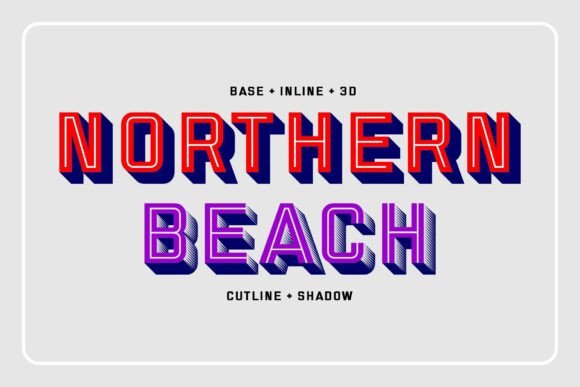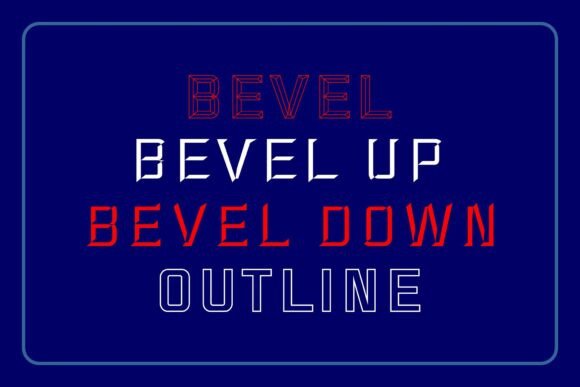
Introducing Factory Font: The Ultimate 3D-Style Font for Eye-Catching Titles and Logos
Are you tired of using plain and ordinary fonts for your designs? Do you want to add a touch of industrial chic to your titles and logos? Look no further than Factory Font, a bold and striking 3D-style font that’s perfect for making a statement. With its layered design and strong, three-dimensional effect, Factory Font is sure to grab attention and leave a lasting impression.
What is Factory Font?
Factory Font is a unique and innovative font that’s designed to give your text a rugged, industrial look. Its bold, 3D-style design features layered letters that appear to be stacked on top of each other, creating a strong and eye-catching effect. The layers add depth and dimension to the text, making it look like it’s popping out of the page.
Key Features of Factory Font
- Bold and striking design: Factory Font is designed to make a statement, with a bold and striking 3D-style design that’s sure to grab attention.
- Layered design: The font features layered letters that appear to be stacked on top of each other, creating a strong and three-dimensional effect.
- Industrial chic: Factory Font has an industrial, rugged look that’s perfect for adding a touch of edginess to your designs.
- Perfect for titles and logos: The font is ideal for use in titles, logos, and other applications where you want to make a bold statement.
How to Use Factory Font in Your Designs
Factory Font is a versatile font that can be used in a variety of design applications, from titles and logos to posters and flyers. Here are a few tips for using Factory Font in your designs:
- Use it for titles and headings: Factory Font is perfect for use in titles and headings, where you want to make a bold statement and grab attention.
- Pair it with a simple font: For body text, pair Factory Font with a simple, easy-to-read font to create a striking contrast.
- Experiment with colors and textures: Factory Font looks great in a variety of colors and textures, so don’t be afraid to experiment and find the look that works best for your design.
Benefits of Using Factory Font
There are many benefits to using Factory Font in your designs, including:
- Increased visibility: The bold, 3D-style design of Factory Font makes it perfect for use in titles and logos, where you want to grab attention and make a statement.
- Industrial chic: Factory Font adds a touch of industrial chic to your designs, making it perfect for crafters, makers, and other creatives who want to add an edgy touch to their work.
- Versatility: Factory Font can be used in a variety of design applications, from titles and logos to posters and flyers.
Who is Factory Font for?
Factory Font is perfect for a variety of designers and crafters, including:
- Graphic designers: Factory Font is a great addition to any graphic designer’s toolkit, perfect for use in titles, logos, and other design applications.
- Crafters and makers: Factory Font adds a touch of industrial chic to craft and maker projects, making it perfect for use in DIY tutorials, product labels, and other applications.
- Sign makers: Factory Font is perfect for use in signs and other applications where you want to make a bold statement and grab attention.
Factory Font is a bold, striking 3D-style font that’s perfect for making a statement in your designs. With its layered design and strong, three-dimensional effect, Factory Font is sure to grab attention and leave a lasting impression. Whether you’re a graphic designer, crafter, or maker, Factory Font is a great addition to your toolkit.